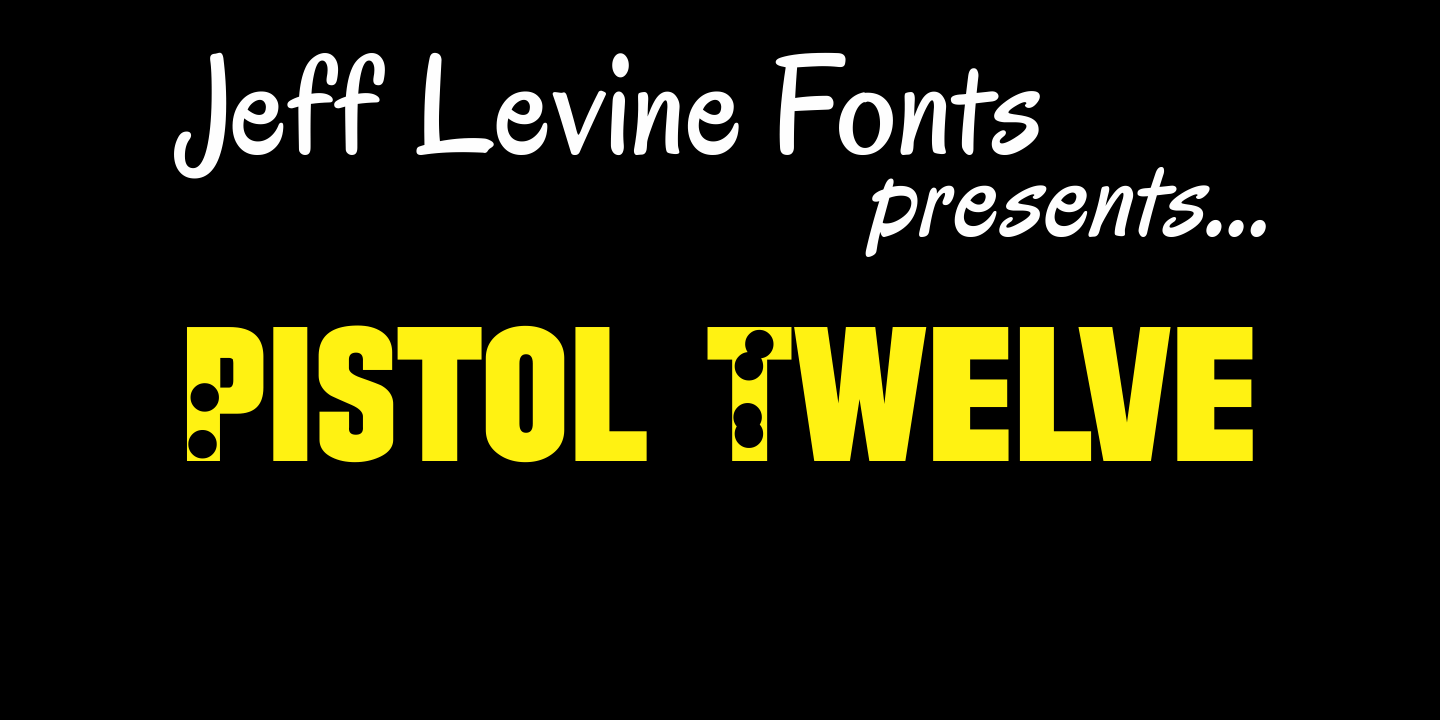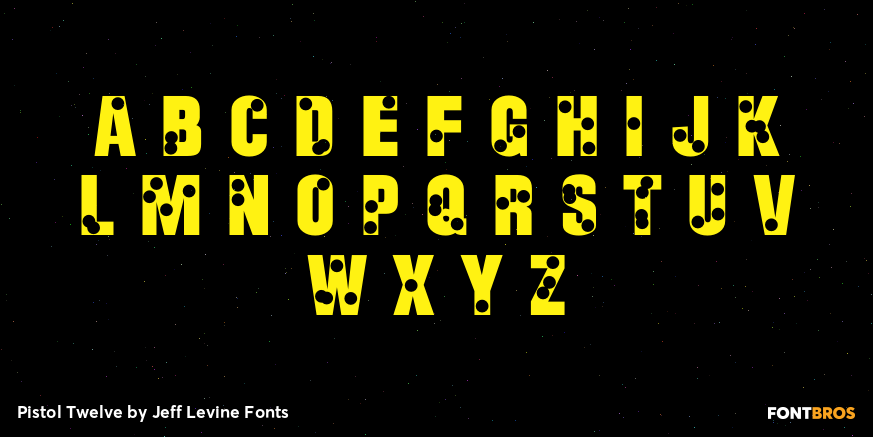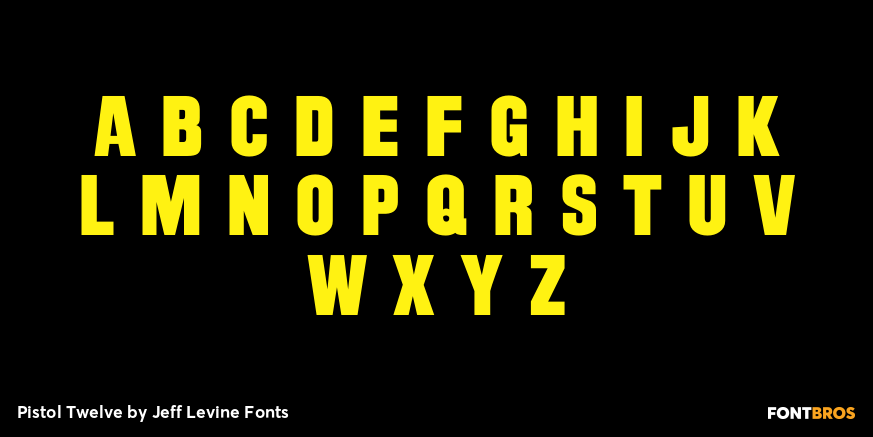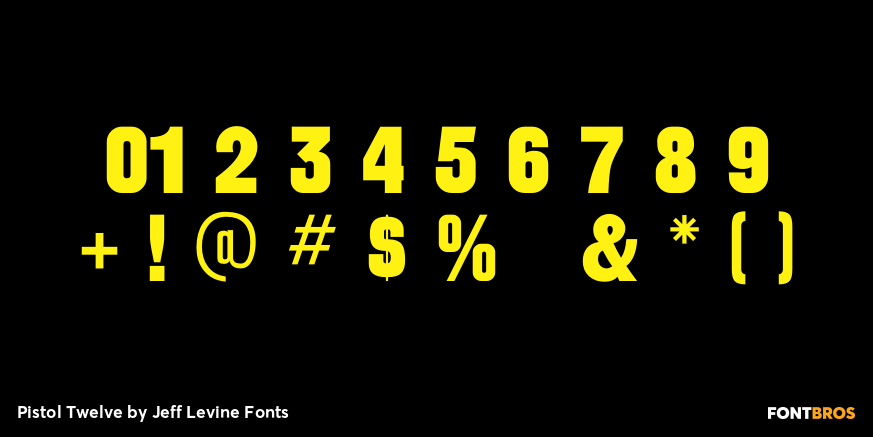
Pistol Twelve
Pistol Twelve JNL is a novelty version of Jeff Levine's Twelve Oaks JNL wood type font, with the addition of random bullet holes in the upper case characters. The font design was suggested by fellow type designer Ray Larabie. Pistol Twelve JNL is a two-fold pun. Initially, this conveys the obvious fact that the design is a variation of Twelve Oaks JNL with bullet holes... but the name is also a play on an old, old joke. One person asks the other: "Would you care to join the Pistol Club? You drink 'til twelve and..." Well, you get the picture!